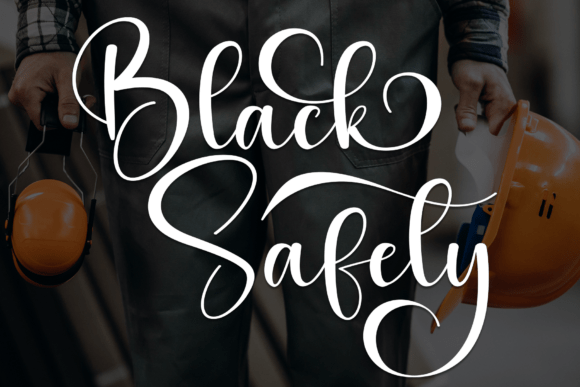
Introducing the Black Safety Font: Elevate Your Designs with a Personal Touch
In the world of typography, fonts play a crucial role in conveying messages, expressing emotions, and creating a lasting impression. When it comes to making a statement, the right font can make all the difference. This is where the Black Safety Font comes in – a script handwritten font designed to bring a personal and expressive touch to your creative projects. With its natural flow, smooth curves, and charming character, this font is perfect for adding a unique flair to any design.
The Power of Handwritten Fonts
Handwritten fonts have a way of connecting with audiences on a personal level. They evoke feelings of warmth, sincerity, and creativity, making them perfect for a wide range of applications. From t-shirts and magazine covers to wedding invitations, branding, social media graphics, and greeting cards, handwritten fonts can elevate your designs and make them stand out from the crowd. The Black Safety Font is no exception – its carefully crafted strokes and curves are designed to add a touch of personality to your projects.
What Makes the Black Safety Font Special?
So, what sets the Black Safety Font apart from other fonts? Here are a few key features that make it a standout:
- Natural Flow: The Black Safety Font boasts a natural, effortless flow that makes it perfect for body text, titles, and decorative elements.
- Smooth Curves: The font’s smooth curves and rounded edges give it a soft, approachable feel that’s perfect for creating a warm and inviting atmosphere.
- Perfect Legibility: Despite its creative and expressive nature, the Black Safety Font remains perfectly legible, even at smaller sizes.
- Full of Personality: This font is designed to bring a touch of personality to your designs, making it perfect for projects that require a unique and creative approach.
Use Cases for the Black Safety Font
The Black Safety Font is incredibly versatile, making it suitable for a wide range of applications. Here are some ideas to get you started:
T-Shirts and Apparel
Add a personal touch to your t-shirts, hoodies, and other apparel with the Black Safety Font. Its bold, expressive strokes make it perfect for creating eye-catching designs that stand out.
Magazine Covers and Editorials
Make a statement with your magazine covers and editorials using the Black Safety Font. Its elegant, cursive strokes add a touch of sophistication and glamour to any design.
Wedding Invitations and Stationery
Add a romantic touch to your wedding invitations, stationery, and other paper goods with the Black Safety Font. Its whimsical, handwritten feel makes it perfect for creating beautiful and memorable designs.
Branding and Packaging
Establish a strong brand identity with the Black Safety Font. Its unique, expressive strokes make it perfect for creating custom logos, packaging, and marketing materials.
Social Media Graphics and Posts
Elevate your social media presence with the Black Safety Font. Its bold, attention-grabbing strokes make it perfect for creating engaging graphics, posts, and stories.
Greeting Cards and Gift Tags
Add a personal touch to your greeting cards, gift tags, and other paper goods with the Black Safety Font. Its warm, inviting feel makes it perfect for creating heartfelt and memorable designs.
Tips for Using the Black Safety Font
To get the most out of the Black Safety Font, here are a few tips to keep in mind:
- Experiment with Sizes: The Black Safety Font looks great at a variety of sizes, from small body text to large headings. Experiment with different sizes to find the perfect fit for your design.
- Play with Colors: The Black Safety Font works beautifully in a range of colors, from bold and bright to soft and pastel. Experiment with different colors to find the perfect match for your design.
- Mix and Match: Don’t be afraid to mix and match the Black Safety Font with other fonts to create a unique and visually appealing design.
The Black Safety Font is a versatile and expressive script handwritten font that’s perfect for adding a personal touch to your creative projects. With its natural flow, smooth curves, and charming character, this font is sure to elevate your designs and make them stand out from the crowd. Whether you’re working on t-shirts, magazine covers, wedding invitations, branding, social media graphics, or greeting cards, the Black Safety Font is the perfect choice. So why wait? Download the Black Safety Font today and start creating stunning designs that speak to your audience on a personal level.